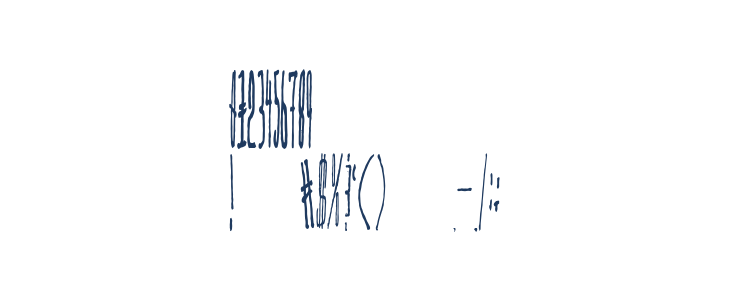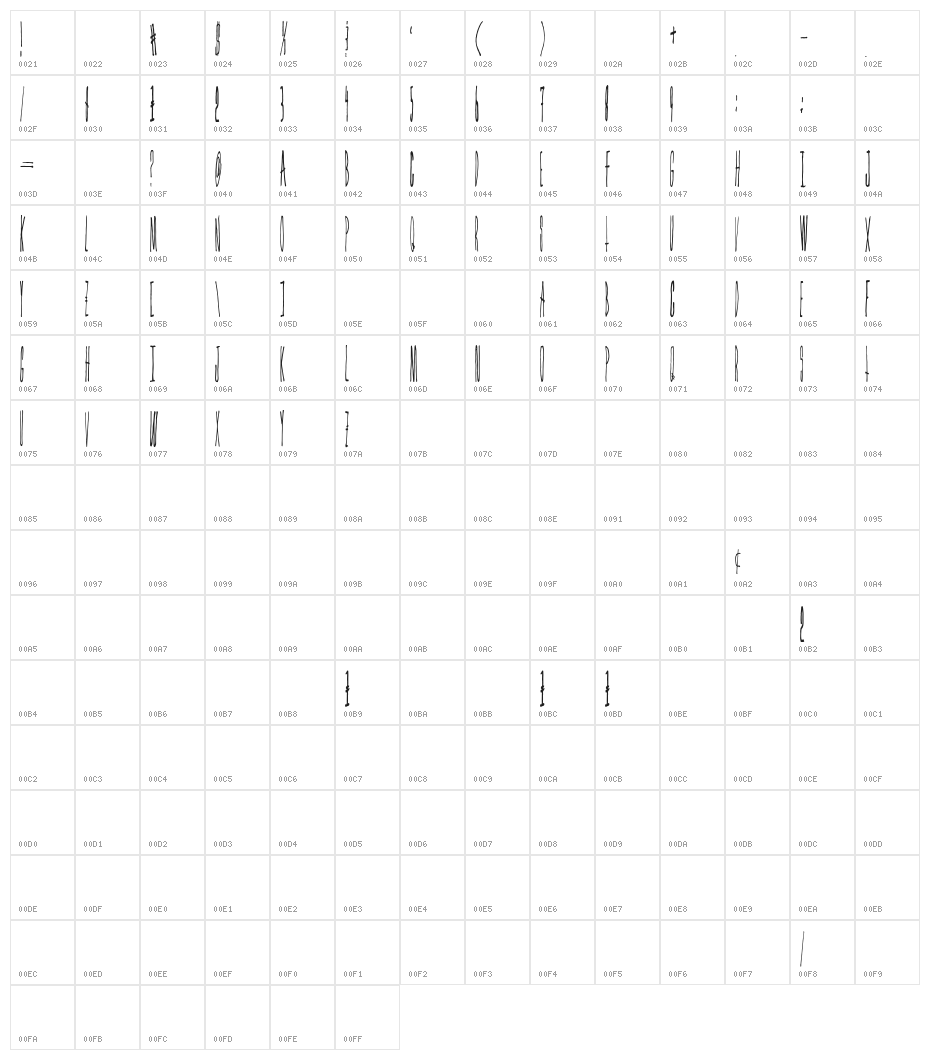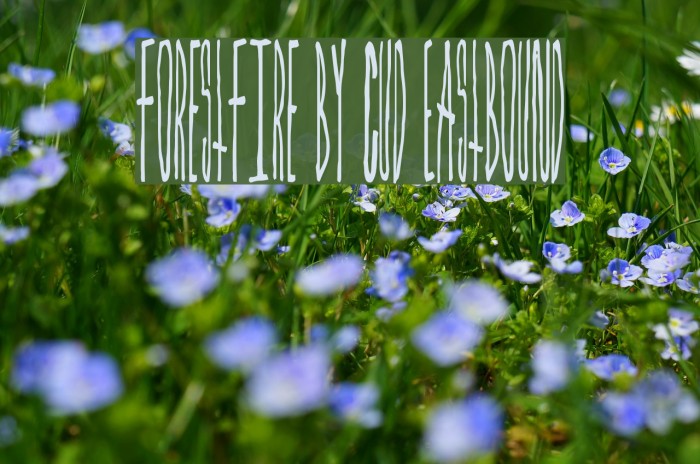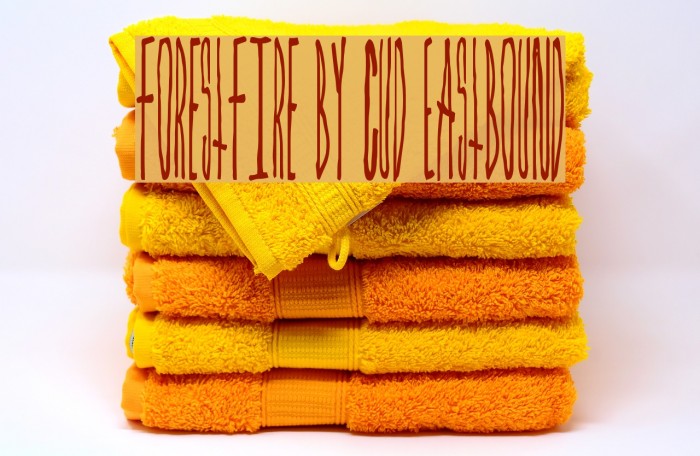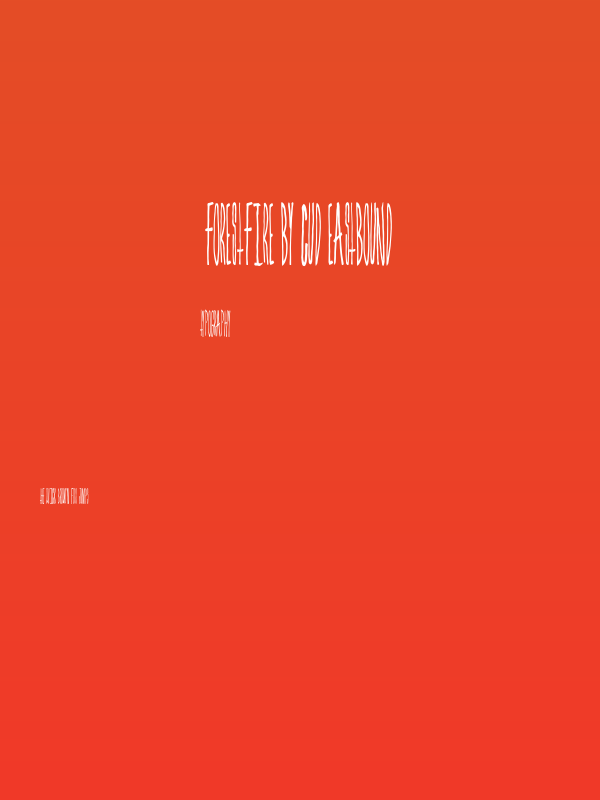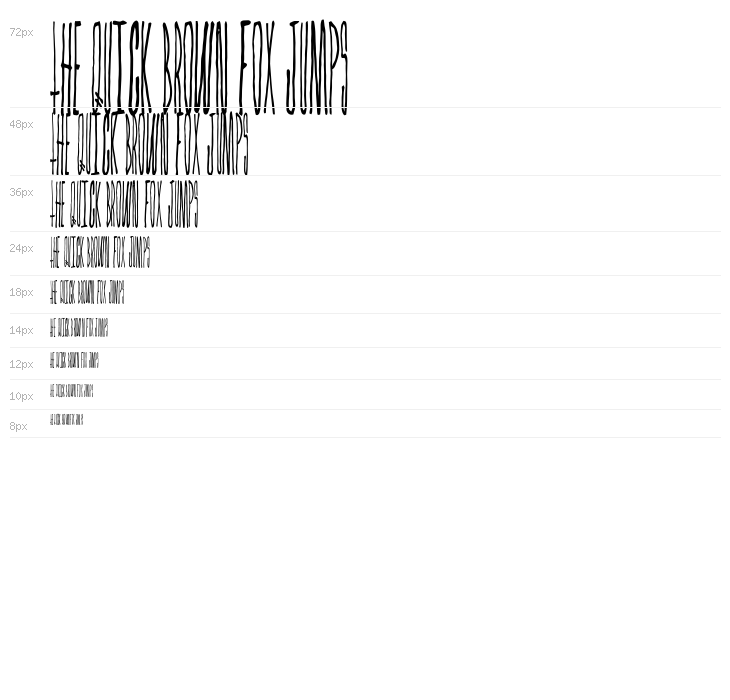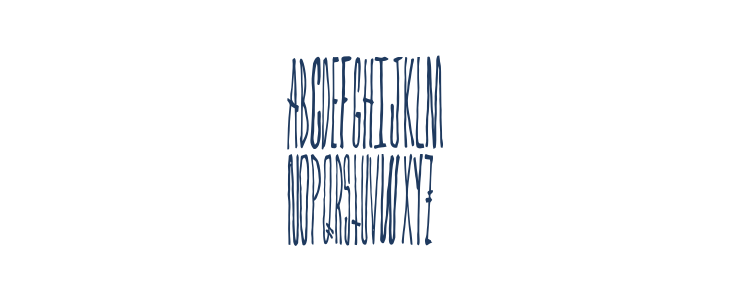
ForestFire by Cud Eastbound Font
ForestFire by Cud Eastbound Description
This font features a highly distinctive and elongated design, with characters that appear stretched vertically, giving it a unique and artistic flair. The strokes are uneven, with a hand-drawn quality that adds to its organic and dynamic appearance. The uppercase and lowercase letters maintain a consistent style, with narrow widths and irregular edges that suggest movement and fluidity. Numbers and special characters follow the same aesthetic, ensuring a cohesive look across all glyphs. This font's unconventional style makes it stand out, ideal for projects that require a bold and creative touch.
| Overall Style | Artistic and Dynamic |
| Use Case | Headlines, Artistic projects, Branding |
| Proposed Projects | Ideal for album covers, posters, and creative branding projects that require a distinctive and artistic touch. |